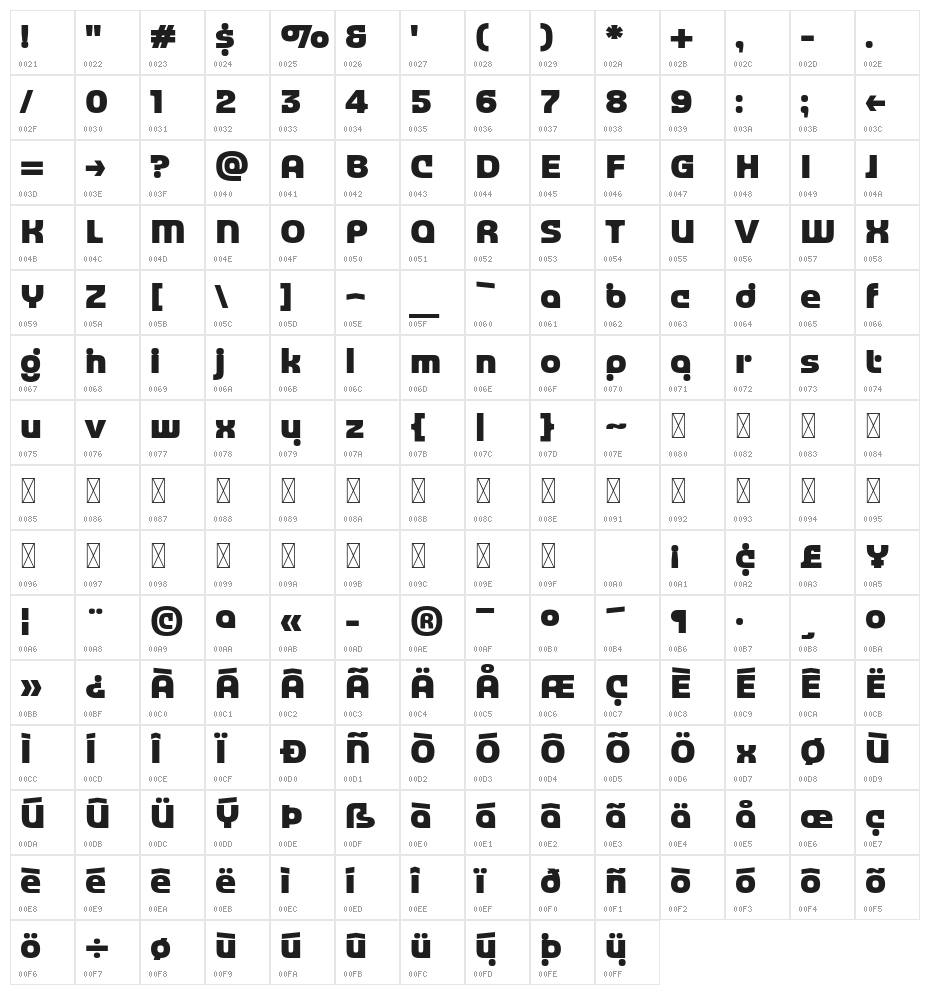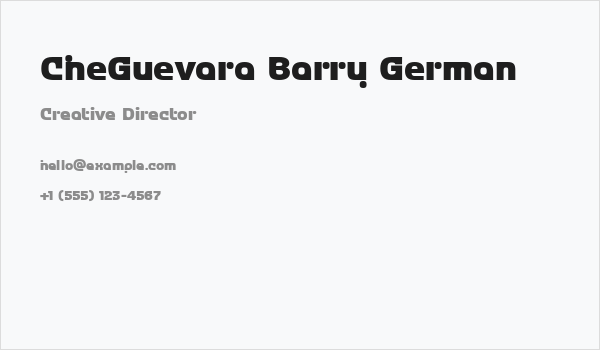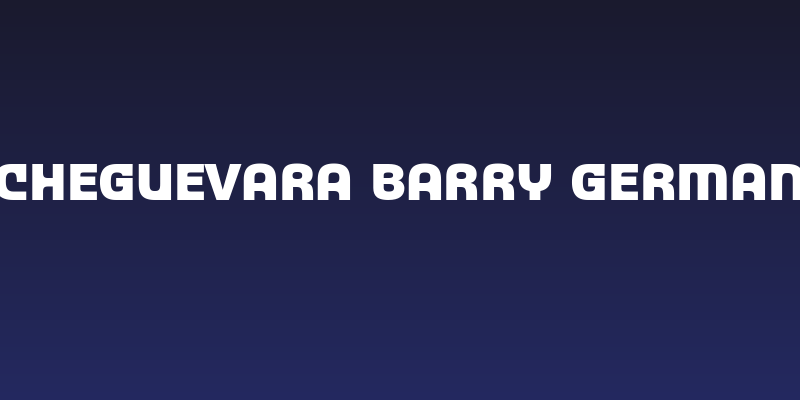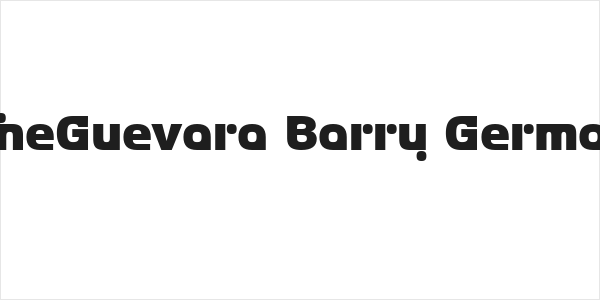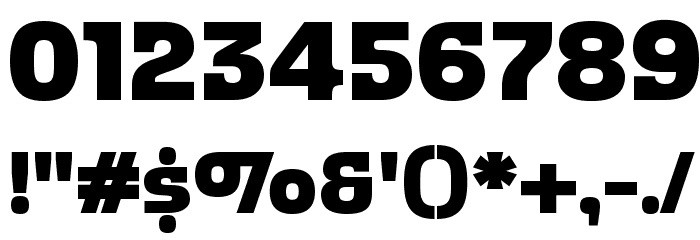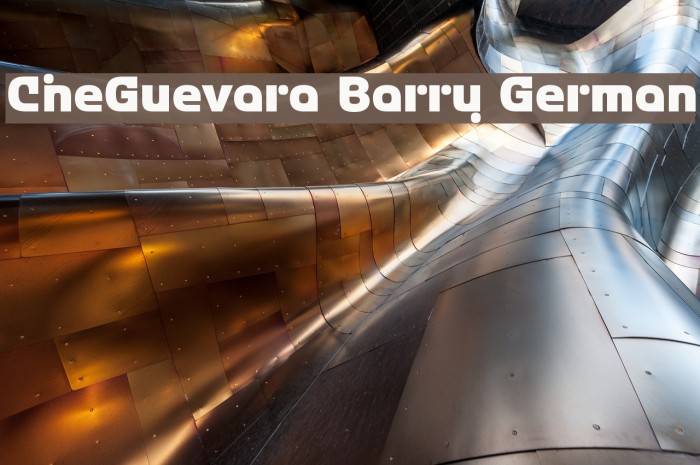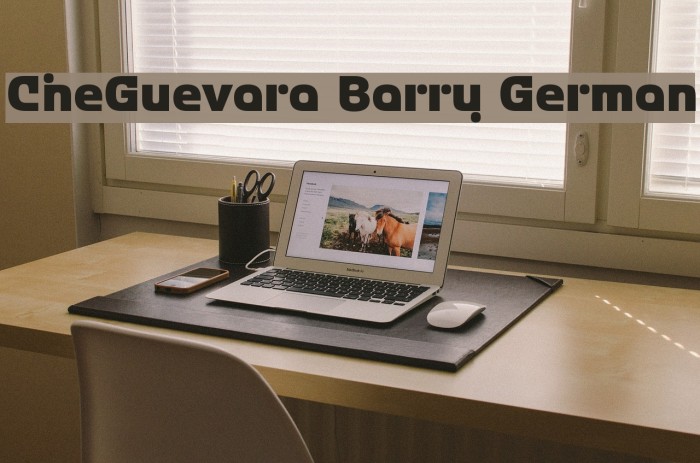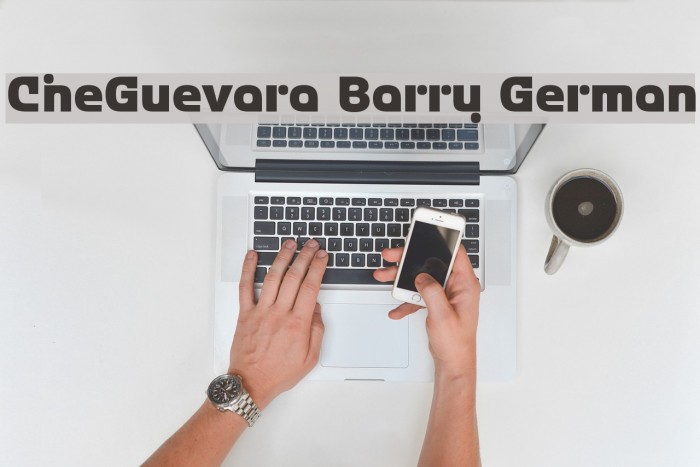
CheGuevara Barry German Font
CheGuevara Barry German Description
This font features a bold and rounded style with a strong geometric influence. The characters are uniformly thick, giving it a robust and impactful appearance. The uppercase and lowercase letters maintain a consistent width, contributing to a cohesive look. The rounded edges soften the overall feel, making it approachable yet assertive. The numerals and special characters follow the same design principles, ensuring uniformity across all elements. This font is well-suited for projects that require a modern and bold aesthetic.
| Proposed Projects | Ideal for branding, headlines, posters, and any design requiring a strong visual impact. |